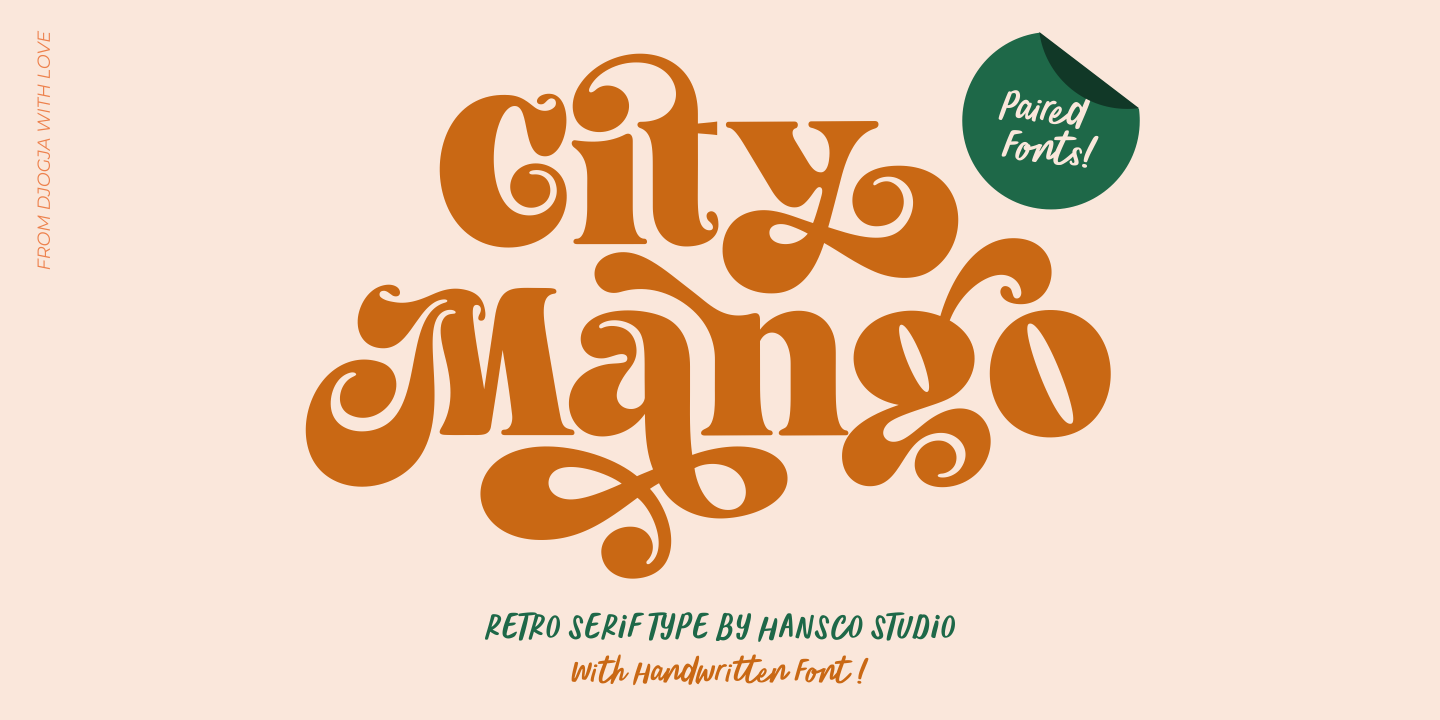
Infuse your designs with vibrant personality and playful energy using City Mango Font Free Download. This bold and funky display typeface features chunky letterforms, rounded edges, and a retro-modern vibe—perfect for posters, branding, streetwear, packaging, and social media graphics. City Mango Font Free Download captures a lively urban spirit that’s both fun and eye-catching.
The dynamic style of City Mango Font makes it ideal for headline use, allowing your message to stand out with confidence and charm. Whether you're working on creative campaigns, lifestyle blogs, or trendy product labels, this font adds a fresh, youthful tone that brings your visuals to life.